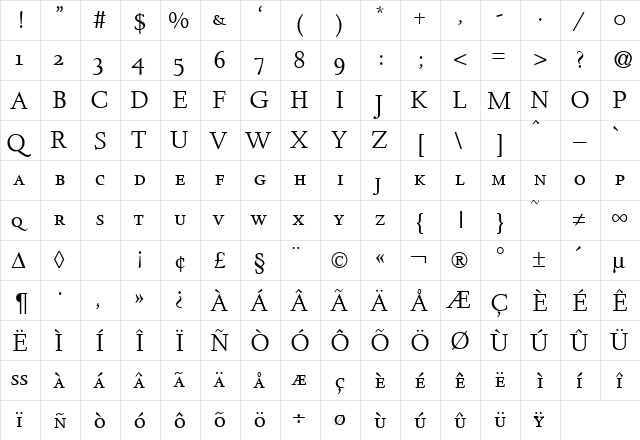
DeemsterSmc DB Regular
Design Context for DeemsterSmc DB Typeface
DeemsterSmc DB offers clean, dependable letterforms without strong stylistic allegiance, making it a practical choice for designers who need flexibility.